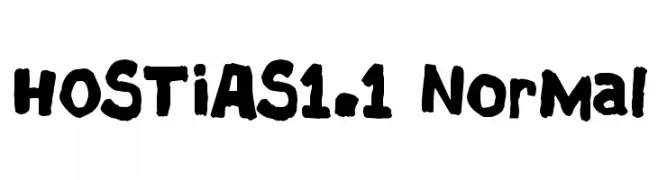
A bold, playful comic-style font with rounded, handwritten characters.
A playful, handwritten font with bold strokes and an informal style.
A bold, playful font with thick strokes and whimsical curves.
A playful, hand-drawn font with bold, irregular strokes and a casual style.